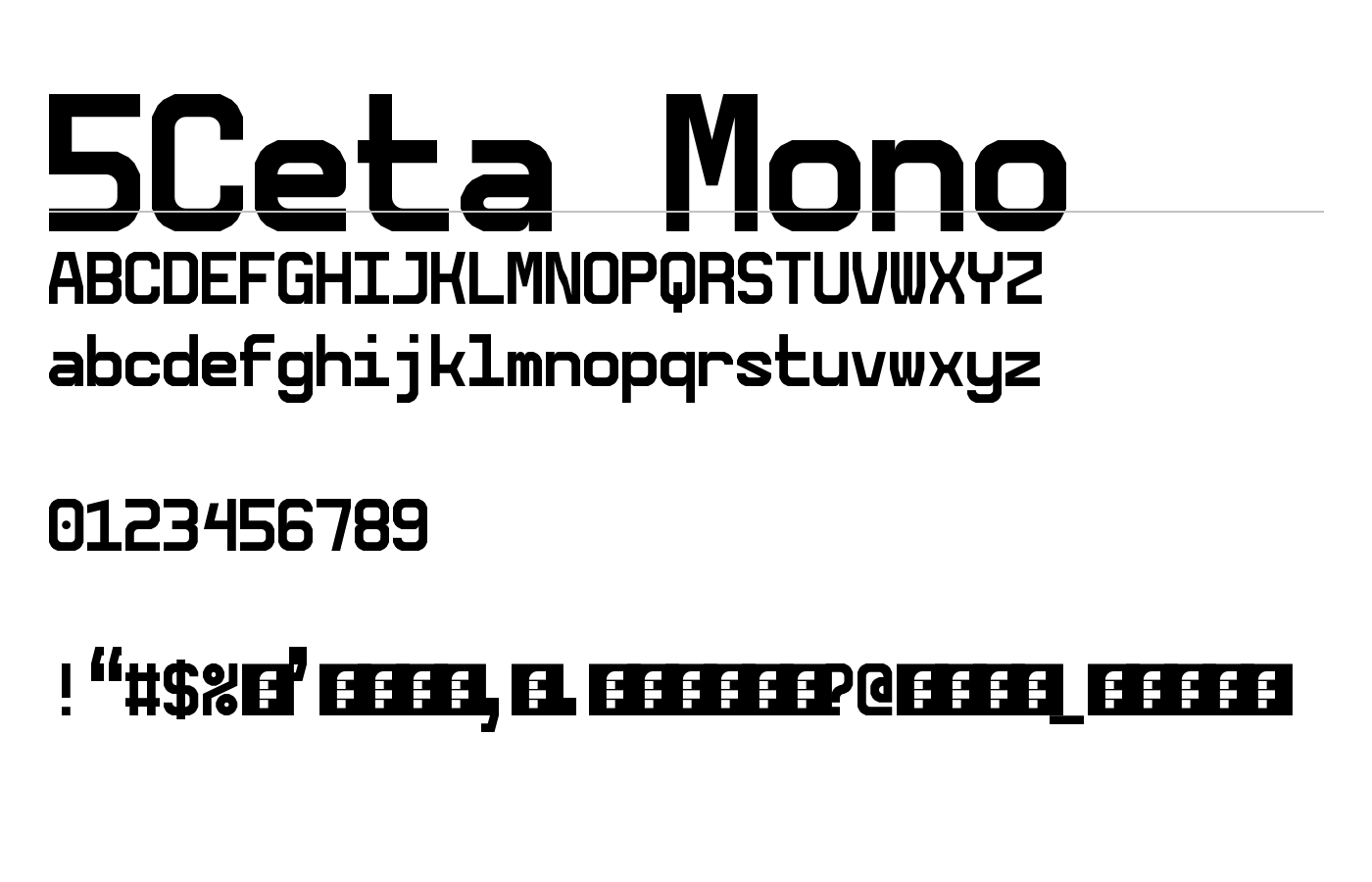
5Ceta Mono is a distinctive monospaced sans serif font with a modern, geometric feel characterized by consistent stroke weight and sharp, angular corners. Its narrow width and uniform spacing give it a technical, structured appearance, making it ideal for coding environments, futuristic branding, and digital displays where clarity and precision are essential. This font works well in contexts that need a clean, contemporary look with a hint of industrial style.
5Ceta Mono Font
About 5Ceta Mono Font
| Font family | 5Ceta Mono Font |
| Designer | Noah - 10 year old typomaniac |